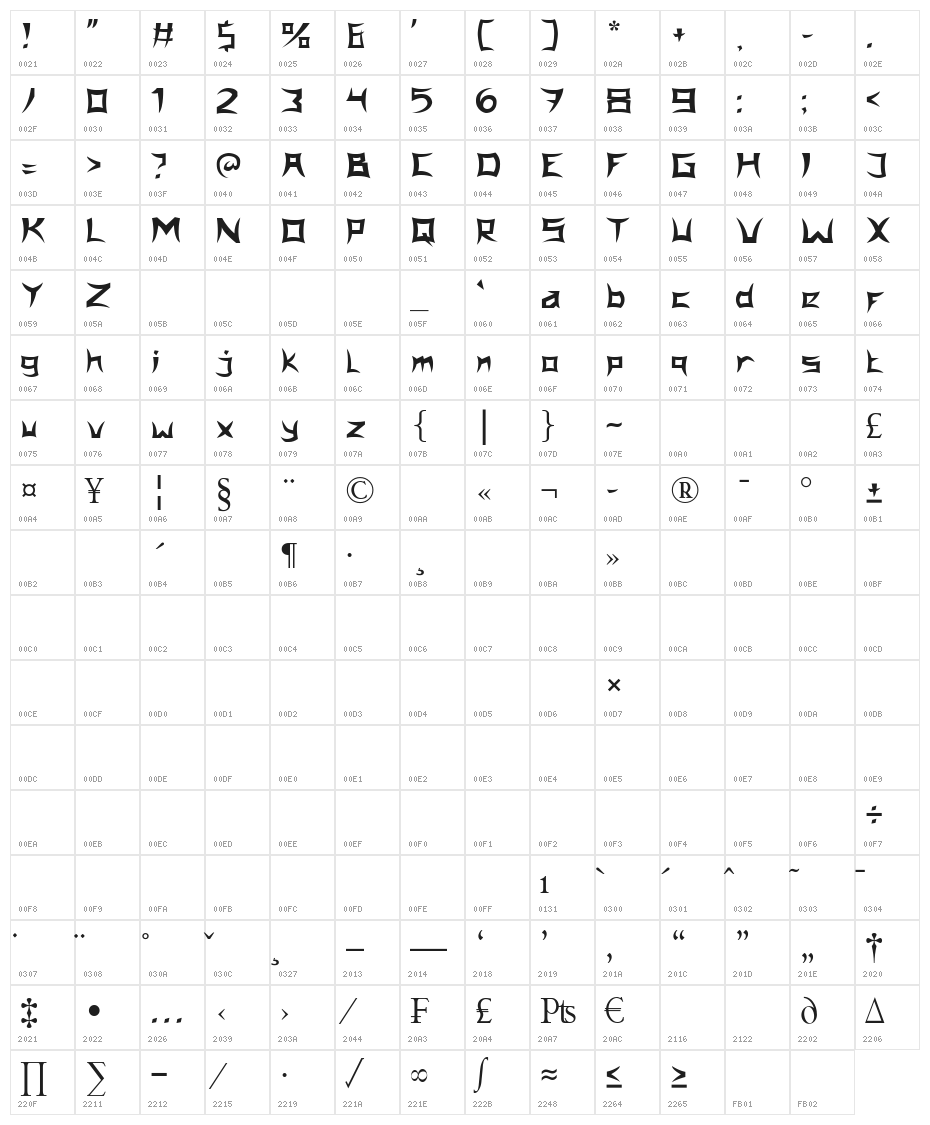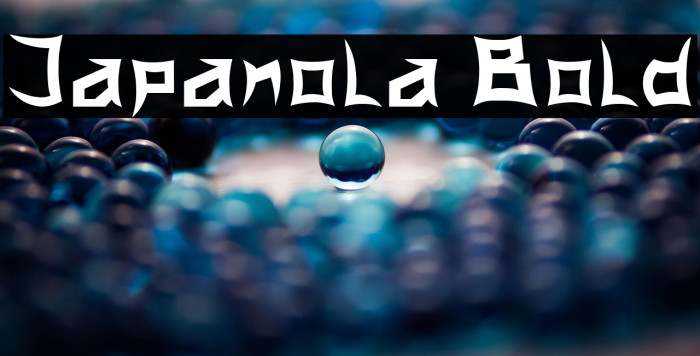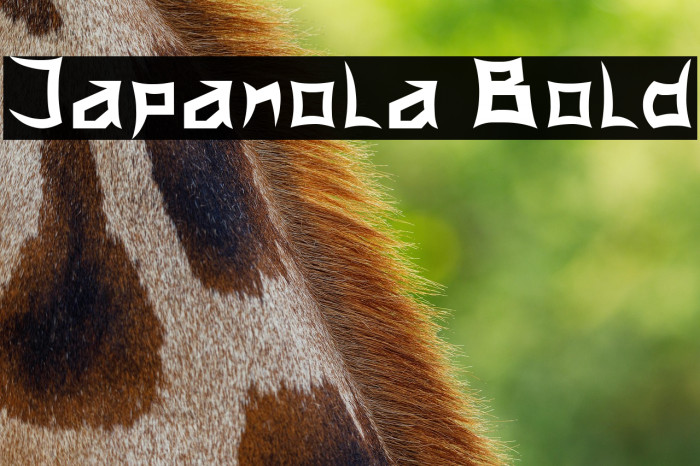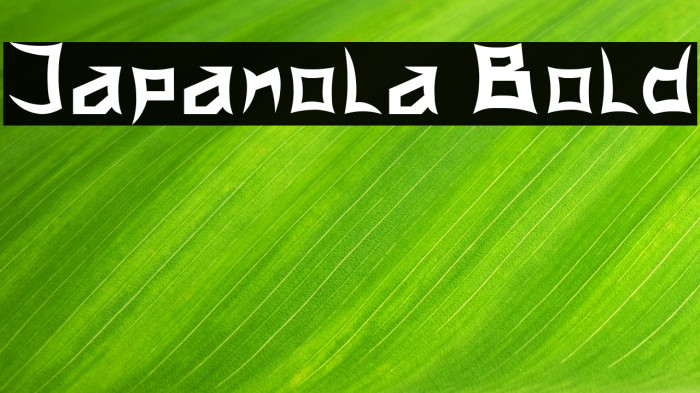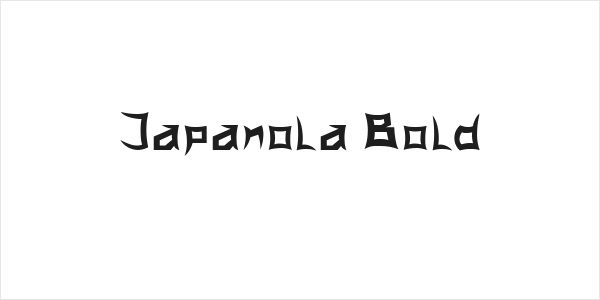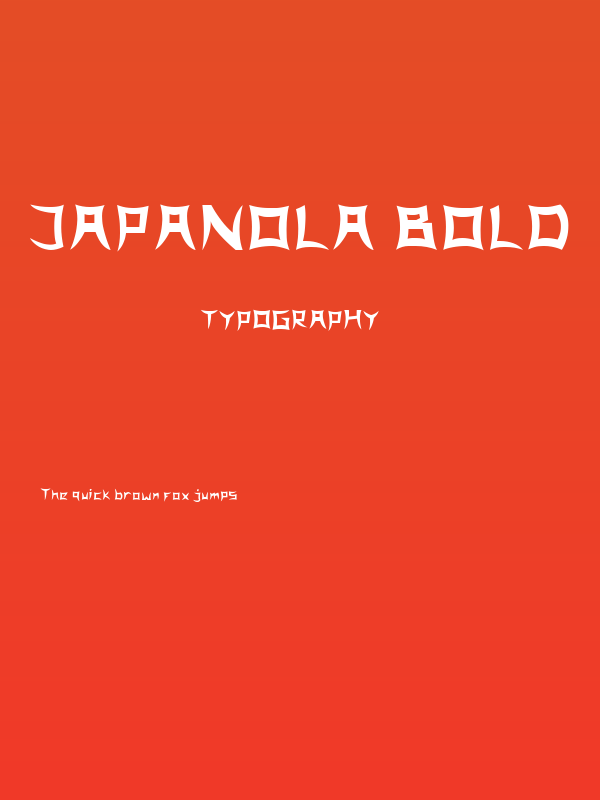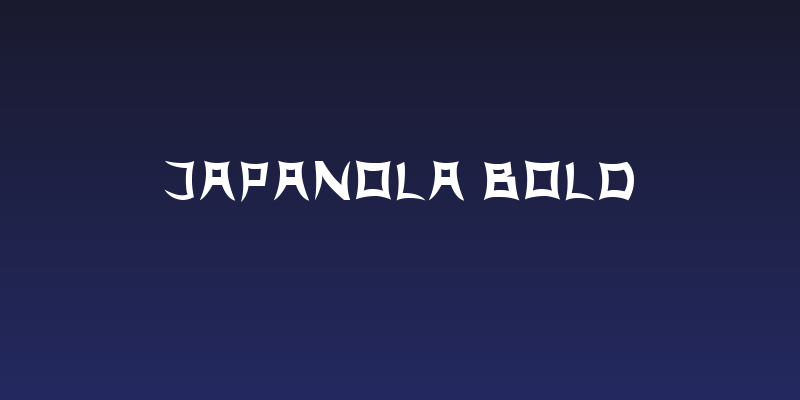
Japanola Bold Font
Japanola Bold Description
This font features a bold and dynamic style with sharp, angular edges and a distinct geometric flair. The characters are designed with a sense of movement and energy, reminiscent of traditional Japanese calligraphy but with a modern twist. The uppercase and lowercase letters maintain a consistent style, with exaggerated serifs and pointed terminals that give the font a unique and striking appearance. The numbers and special characters follow the same design principles, ensuring a cohesive look across all glyphs. The font's boldness and unique style make it stand out, suitable for projects that require a strong visual impact.
| Proposed Projects | Ideal for branding, posters, and any design work that requires a bold, eye-catching typeface. |